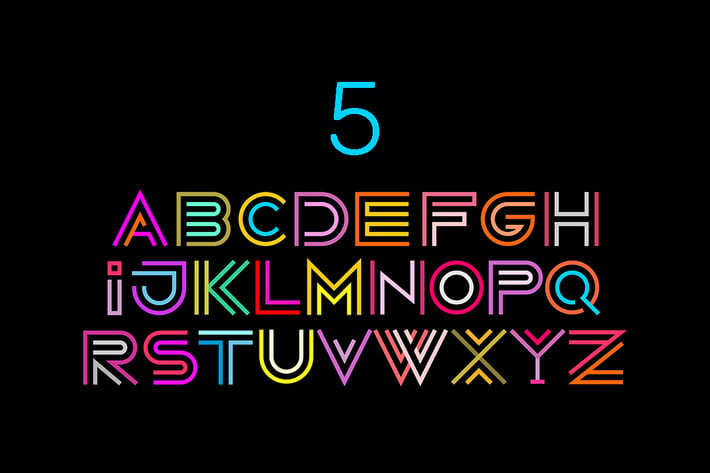
Neon Line Art Font Designs
Typeface design featuring the letters of the alphabet from A to Z. Neon colors isolated on a black / on a purple background Decorative Line Art Font vector illustrations.
& Black and white simple line art font.